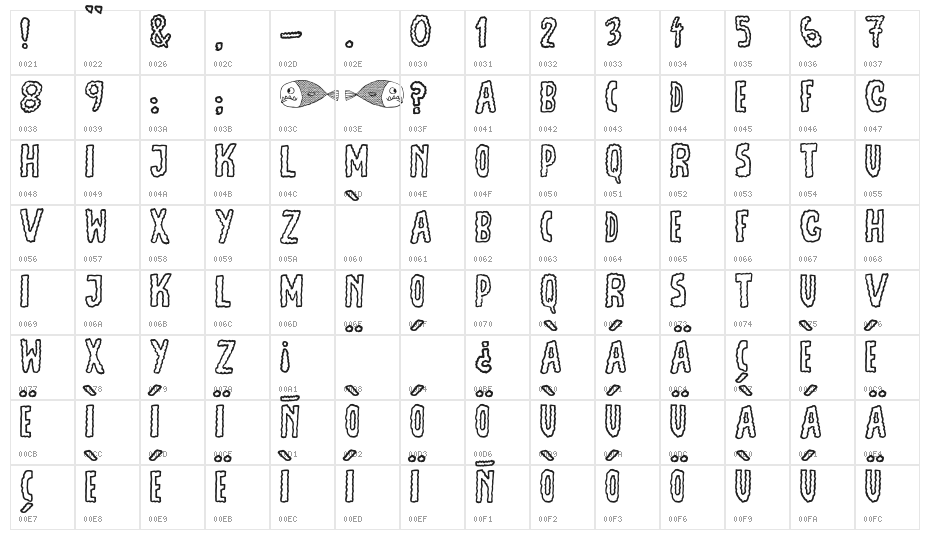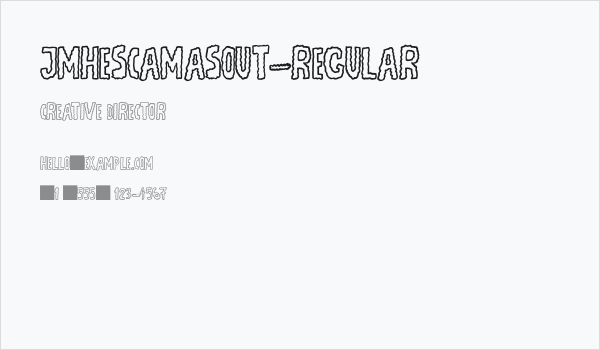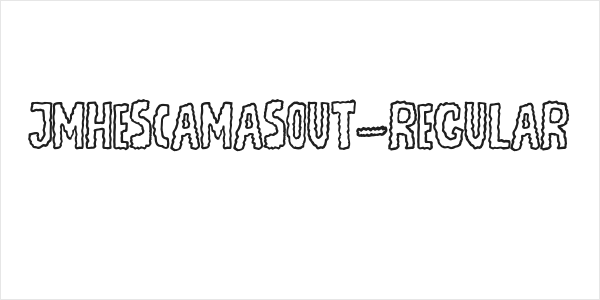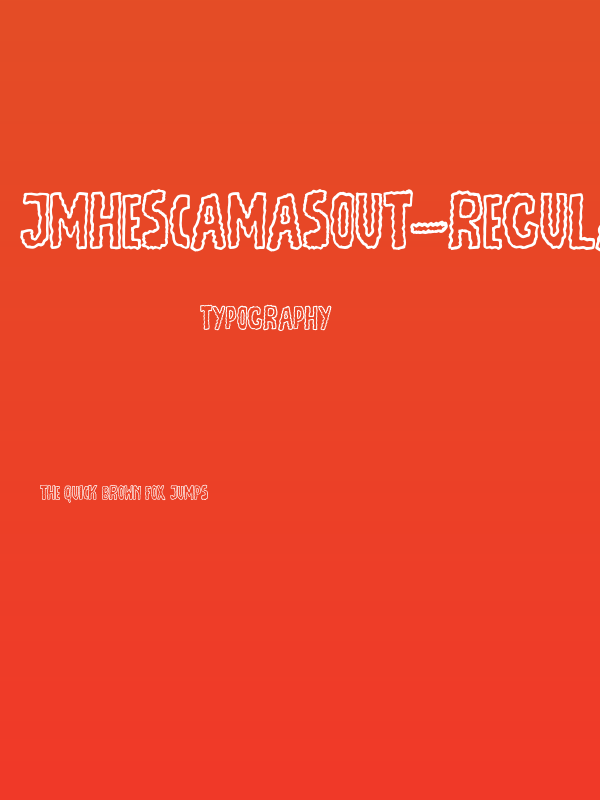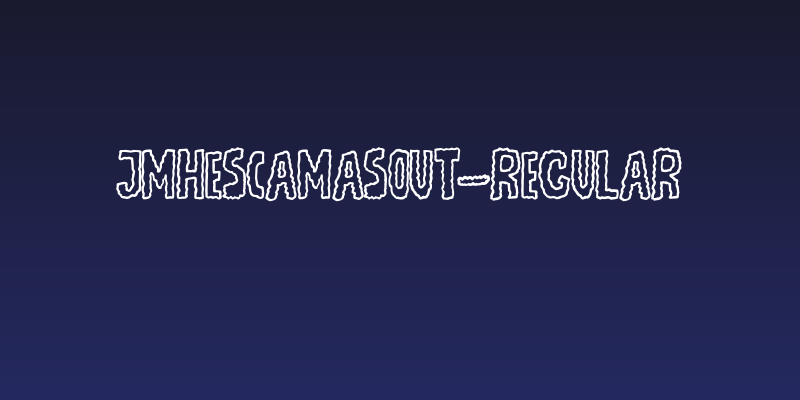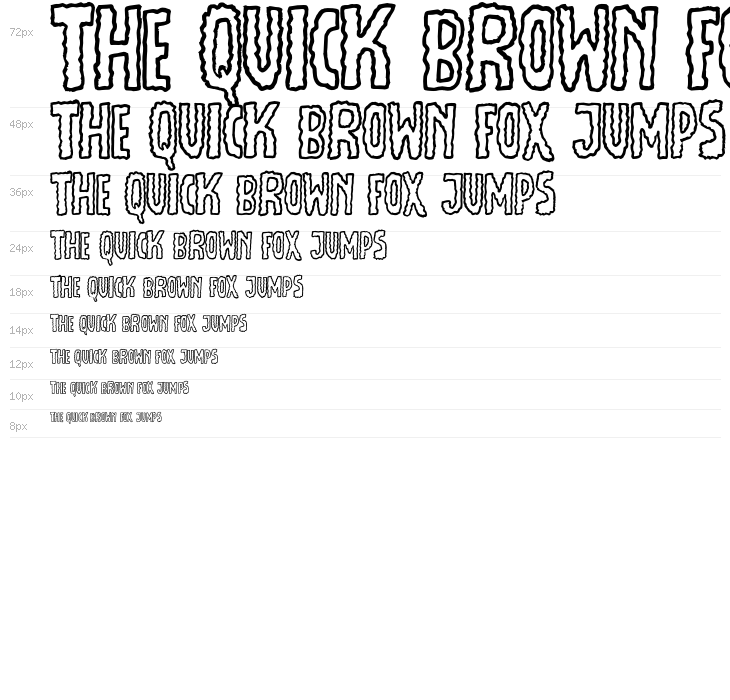
JMHEscamasOut-Regular Font
JMHEscamasOut-Regular Description
This font features a unique, hand-drawn style with an outline effect that gives each character a textured, wavy appearance. The letters are bold and have a playful, organic feel, reminiscent of doodles or sketches. The uppercase and lowercase letters maintain a consistent style, with the numbers and special characters following suit. The irregular edges and whimsical design make it stand out, adding a creative touch to any project. It's perfect for designs that require a fun, informal, and artistic vibe.
| Proposed Projects | Ideal for children's books, creative posters, playful branding, and artistic invitations. |